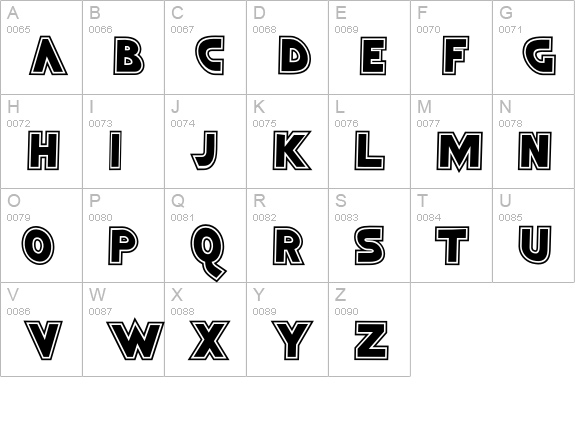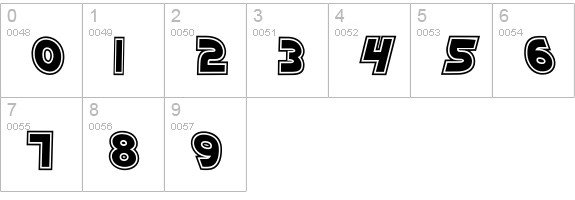
Bimasakti Font Details
Introducing Bimasakti, a stunning and versatile font that will take your designs to new heights. With its elegant and modern aesthetic, Bimasakti is perfect for a wide range of creative projects, from branding and logo design to packaging and editorial work. What sets Bimasakti apart is not only its beautiful design, but also its accessibility. This font is available for free, allowing designers of all skill levels to enjoy its beauty without any limitations. Whether you're a professional graphic designer or a hobbyist looking to add a touch of sophistication to your DIY projects, Bimasakti is the perfect choice. Downloading Bimasakti is quick and easy, thanks to FontsMarket.com. This trusted platform offers a vast collection of fonts, and Bimasakti is just one of the many gems you'll find. Simply visit FontsMarket.com, search for Bimasakti, and download it instantly, without any hassle or hidden fees. It's as simple as that! So why wait? Elevate your designs with Bimasakti font today. Download it for free at FontsMarket.com and unlock a world of endless creative possibilities. Whether you're designing a sleek corporate identity or adding a touch of elegance to a personal project, Bimasakti will deliver exceptional results every time. Don't miss out on this incredible font – get it now and let your creativity shine!